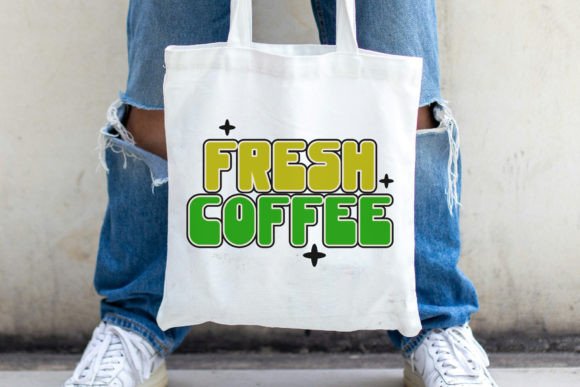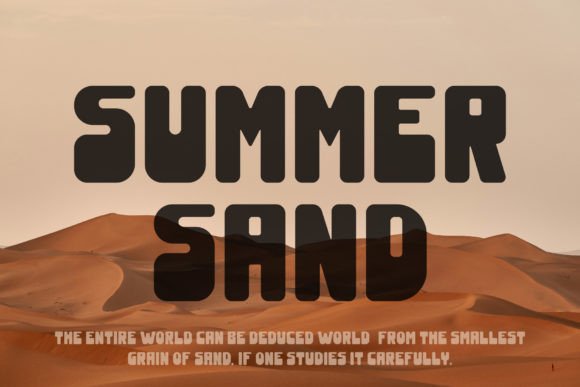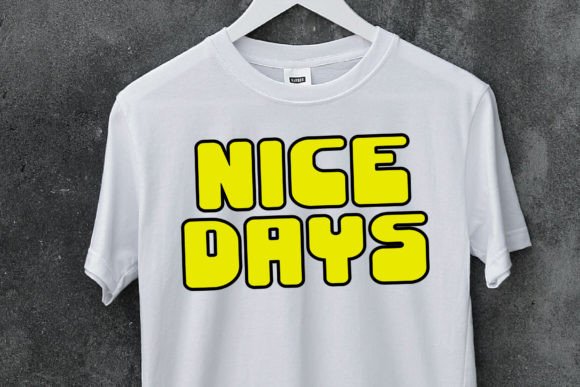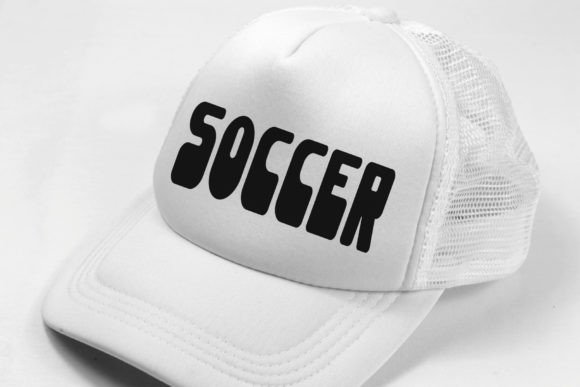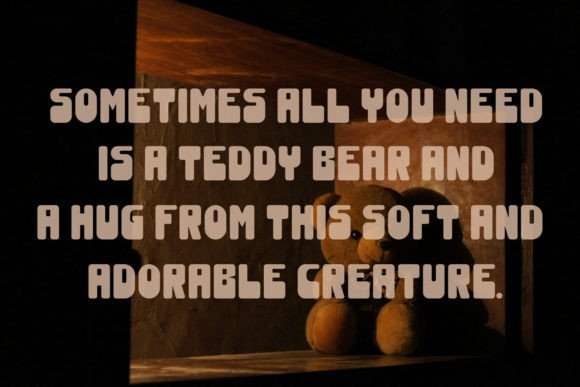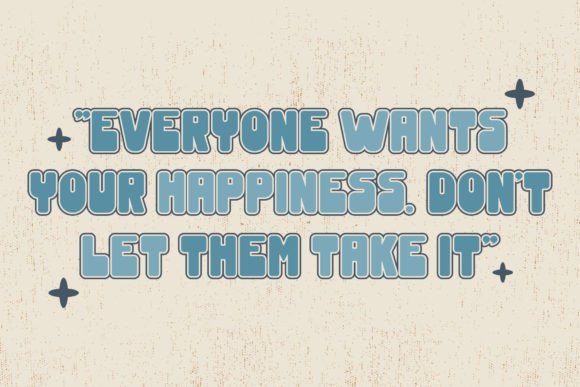
Cute Groovy Font: Elevate Your Designs with a Retro Twist
Are you on the hunt for a font that adds a dash of playfulness and style to your creative projects? Look no further than the Cute Groovy Font! This versatile, stylish, and groovy retro display font is perfect for a wide range of applications, from greeting cards and headlines to posters, flyers, and more. In this article, we’ll dive into the world of Cute Groovy Font and explore its features, benefits, and uses.
What is Cute Groovy Font?
Cute Groovy Font is a carefully crafted display font that embodies the spirit of the retro era. Its unique and playful design makes it an excellent choice for designers and crafters looking to add a touch of nostalgia and whimsy to their work. The font’s versatility allows it to be used in various contexts, from formal to informal, and its stylish appearance ensures that your designs will stand out from the crowd.
Key Features of Cute Groovy Font
- Retro-inspired design: Cute Groovy Font boasts a distinctive retro aesthetic that’s sure to transport your designs back to the groovy era.
- Playful and whimsical: The font’s playful curves and lines add a touch of whimsy to your designs, making them perfect for projects that require a dash of personality.
- Versatile: Cute Groovy Font can be used in a wide range of applications, from digital designs to print materials.
- Easy to read: Despite its playful nature, the font remains easy to read, making it perfect for headlines, titles, and short paragraphs.
Benefits of Using Cute Groovy Font
So, why should you choose Cute Groovy Font for your next project? Here are just a few benefits of using this fantastic font:
- Adds a touch of personality: Cute Groovy Font helps you inject your designs with a unique personality that sets them apart from the rest.
- Perfect for creative projects: Whether you’re working on a greeting card, poster, or flyer, Cute Groovy Font is an excellent choice for adding a creative twist.
- Easy to pair with other fonts: The font’s versatility makes it easy to pair with other fonts, allowing you to create stunning font combinations.
- Great for branding: Cute Groovy Font can help you establish a strong brand identity that’s playful, yet professional.
Use Cases for Cute Groovy Font
Cute Groovy Font is an incredibly versatile font that can be used in a wide range of applications. Here are some use cases to get you started:
- Greeting cards: Add a touch of whimsy to your greeting cards with Cute Groovy Font.
- Headlines and titles: Use the font to create eye-catching headlines and titles for your blog posts, articles, and social media content.
- Posters and flyers: Cute Groovy Font is perfect for creating eye-catching posters and flyers that grab attention.
- Branding and logos: Establish a strong brand identity with Cute Groovy Font.
| Font Name | Cute Groovy Font |
| Author | Kido Studio |
In conclusion, Cute Groovy Font is an excellent choice for designers and crafters looking to add a touch of playfulness and style to their creative projects. Its versatile design, playful aesthetic, and ease of use make it perfect for a wide range of applications. Whether you’re working on a greeting card, headline, or poster, Cute Groovy Font is sure to elevate your designs and make them stand out from the crowd.
Get Ready to Groove with Cute Groovy Font!